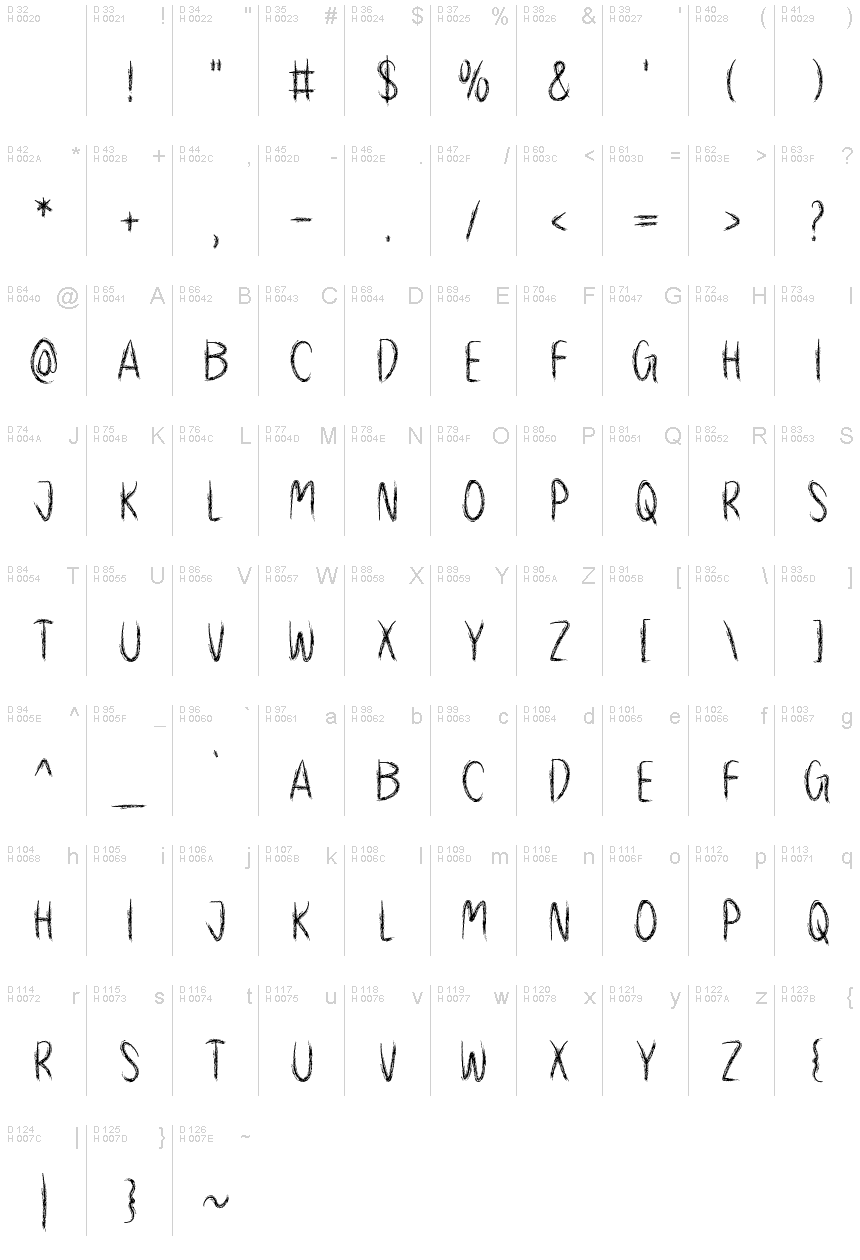
Summer Knock
Meet Summer Knock, a captivating brush font by Md Shohail Bhuian. With its semi-light weight and condensed width, this versatile typeface brings a touch of elegance to any project.
Perfect for fashion magazines, wedding invitations, or beauty blogs, Summer Knock adds a playful yet sophisticated vibe to your designs. Its flowing strokes and unique characters will make your headlines and logos stand out from the crowd.